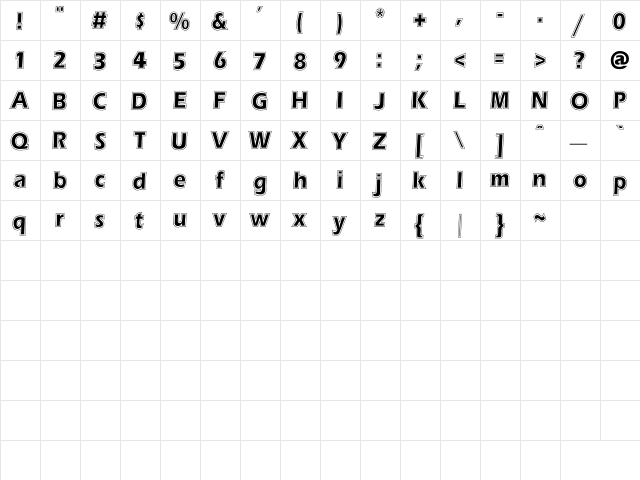
ErasContour Th Regular
Design Context for ErasContour Th Typeface
ErasContour Th is a composed and adaptable typeface that performs quietly and consistently across a wide range of design contexts.